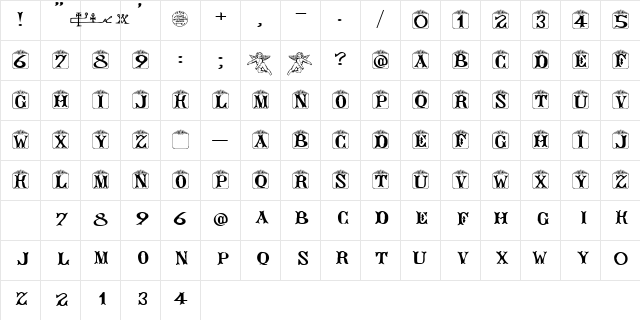
Angelots (Unregistered) Regular Free Font
Angelots (Unregistered) Regular
Design Context for Angelots (Unregistered)
Angelots (Unregistered) is a composed and adaptable typeface that performs quietly and consistently across a wide range of design contexts.